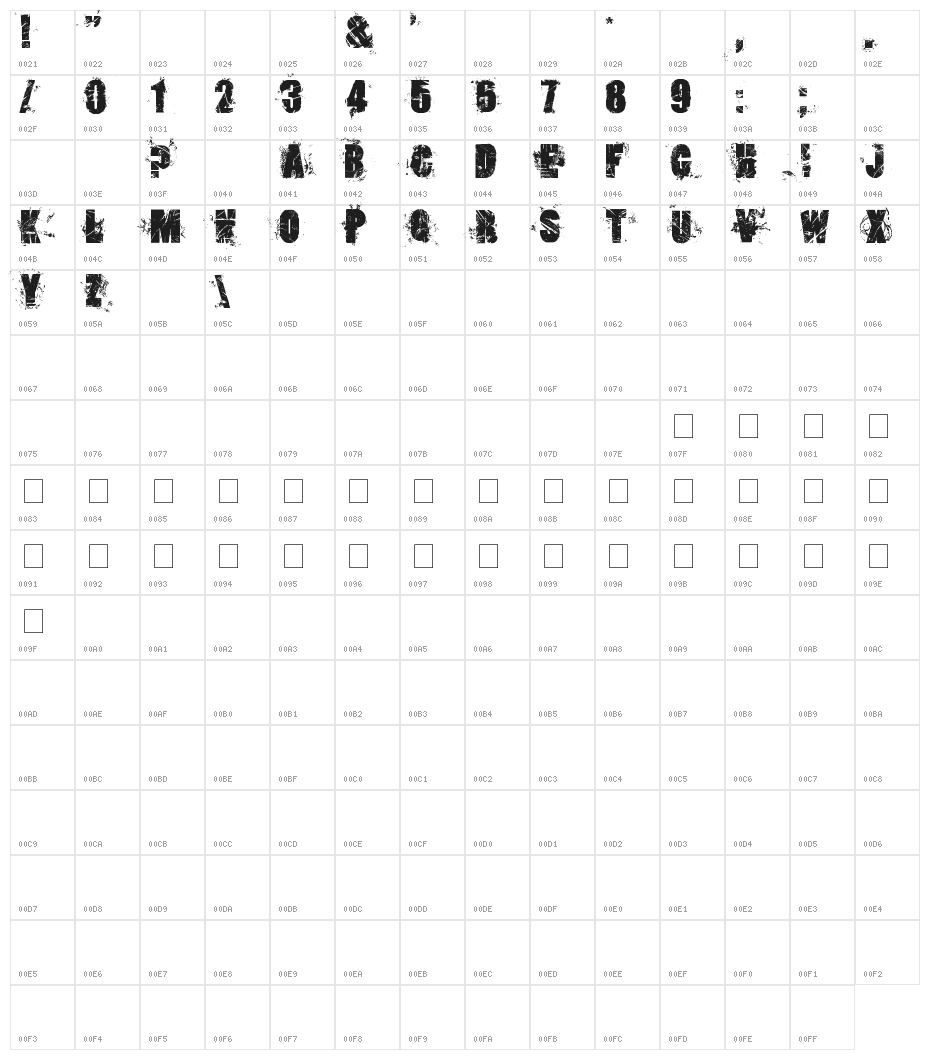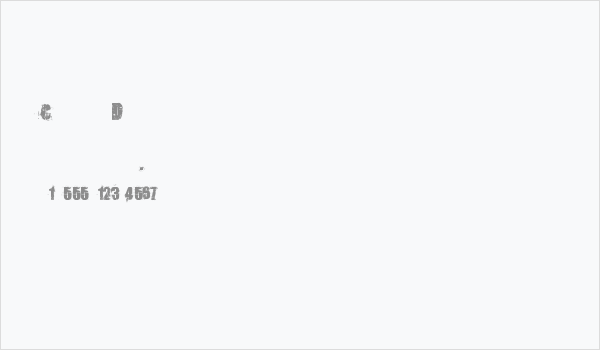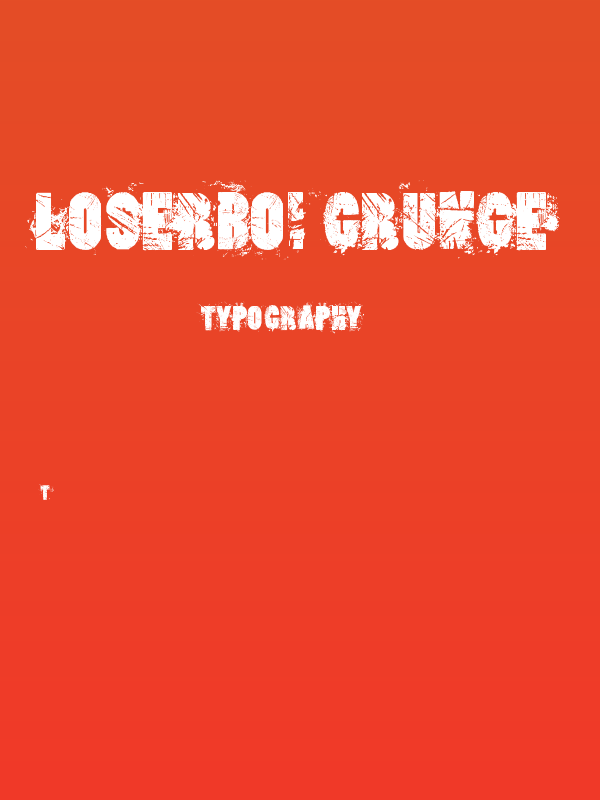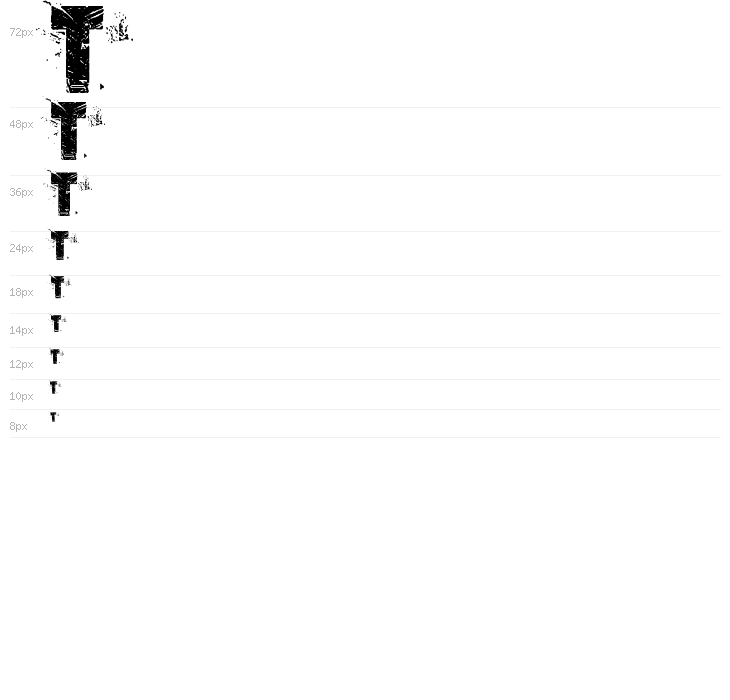
loserboi grunge Font
loserboi grunge Description
This font features a bold, distressed style with a grunge aesthetic. The characters are heavily textured, giving them a worn and rugged appearance. The uppercase letters are prominent and impactful, while the numbers and special characters maintain the same distressed look. This font is ideal for projects that require a raw, edgy feel, such as music album covers, posters, or urban-themed designs. Its unique style captures attention and conveys a sense of rebellion and nonconformity.
| Overall Style | Grunge, Edgy, Distressed |
| Proposed Projects | Ideal for music album covers, posters, urban-themed designs, and rebellious branding. |